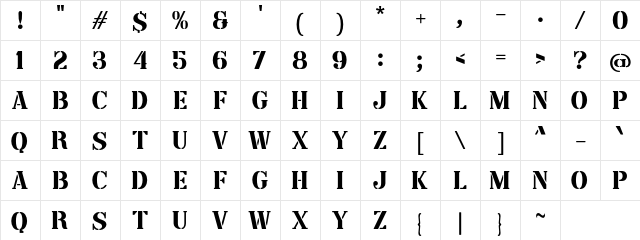
a Angkatan Bersenjata Regular Font Preview
a Angkatan Bersenjata Regular
a Angkatan Bersenjata Regular Font Details
| Designer | Wahyu Eka Prasetya |
Design Context for a Angkatan Bersenjata Typeface
a Angkatan Bersenjata takes a measured approach to typography — its balanced proportions and neutral character make it a reliable workhorse for both digital and print work.